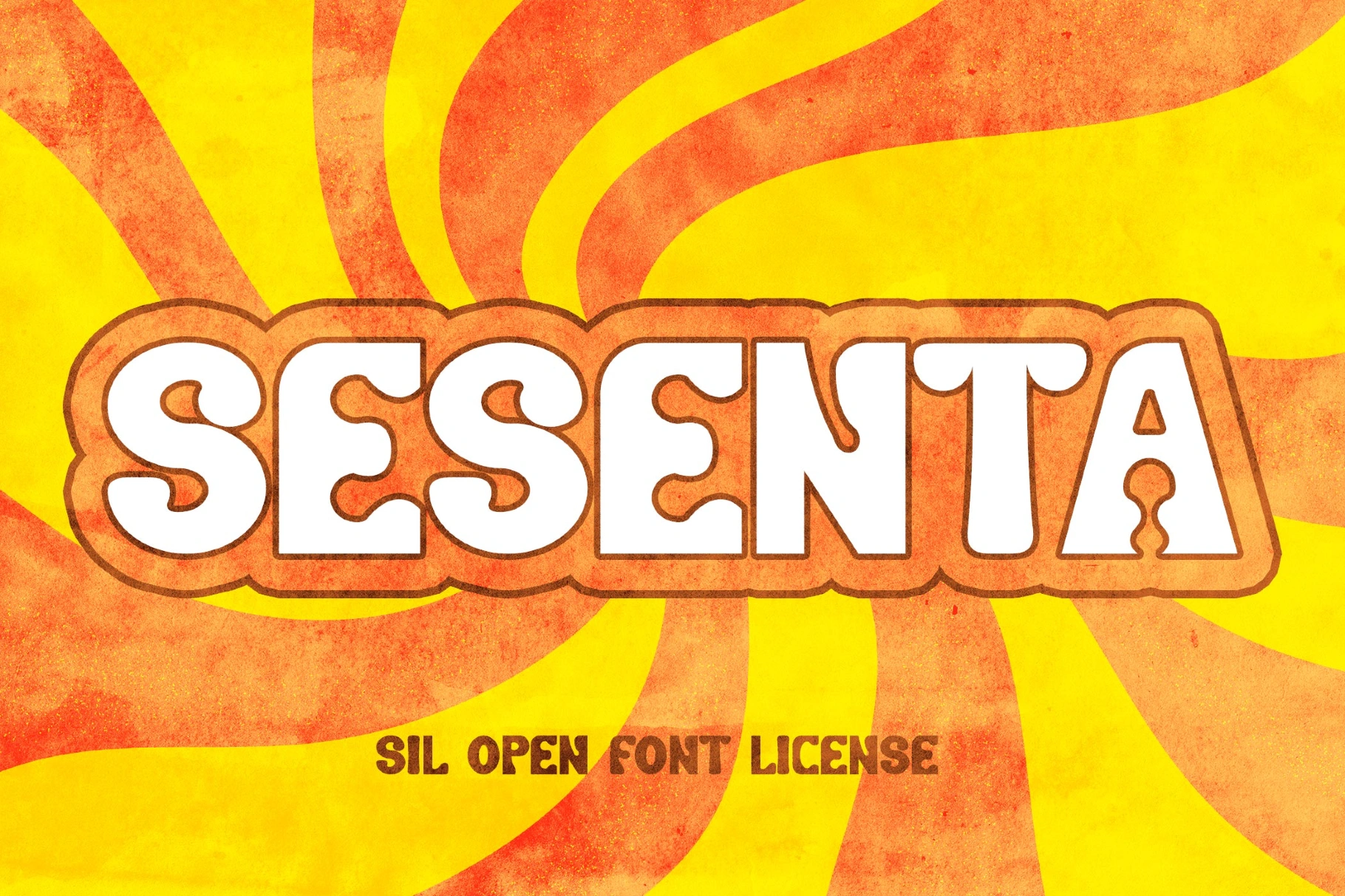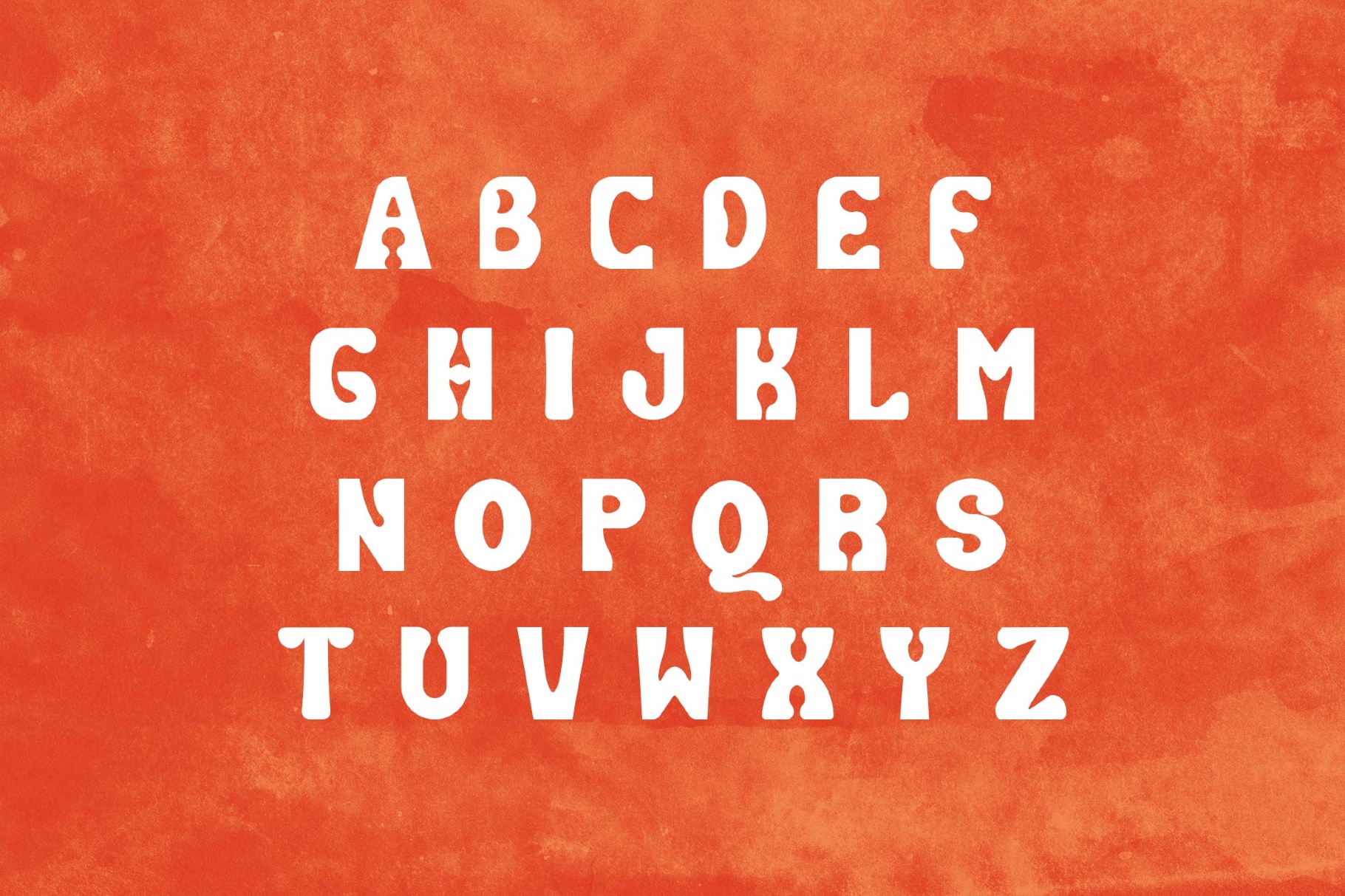
Sesenta - 60s Summer Font
Sesenta
Sesenta is an all-caps font with the groovy swing of 1960s flower-power posters, painted van graphics, and sunlit festival flyers, full of playful curves and easy retro warmth. This type works beautifully for summer event posters, swim club branding, beach-market packaging, album covers, sticker designs and café menus.